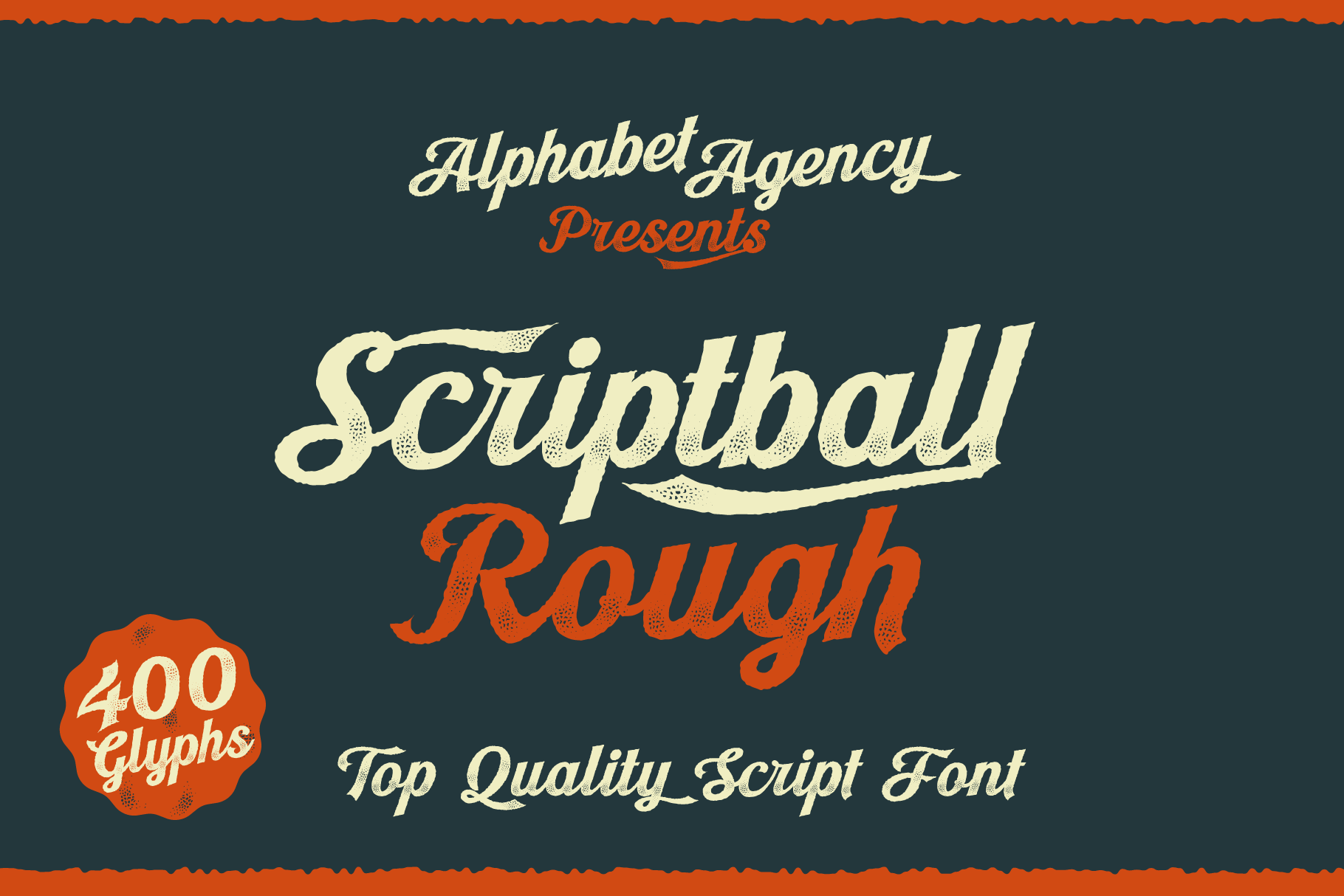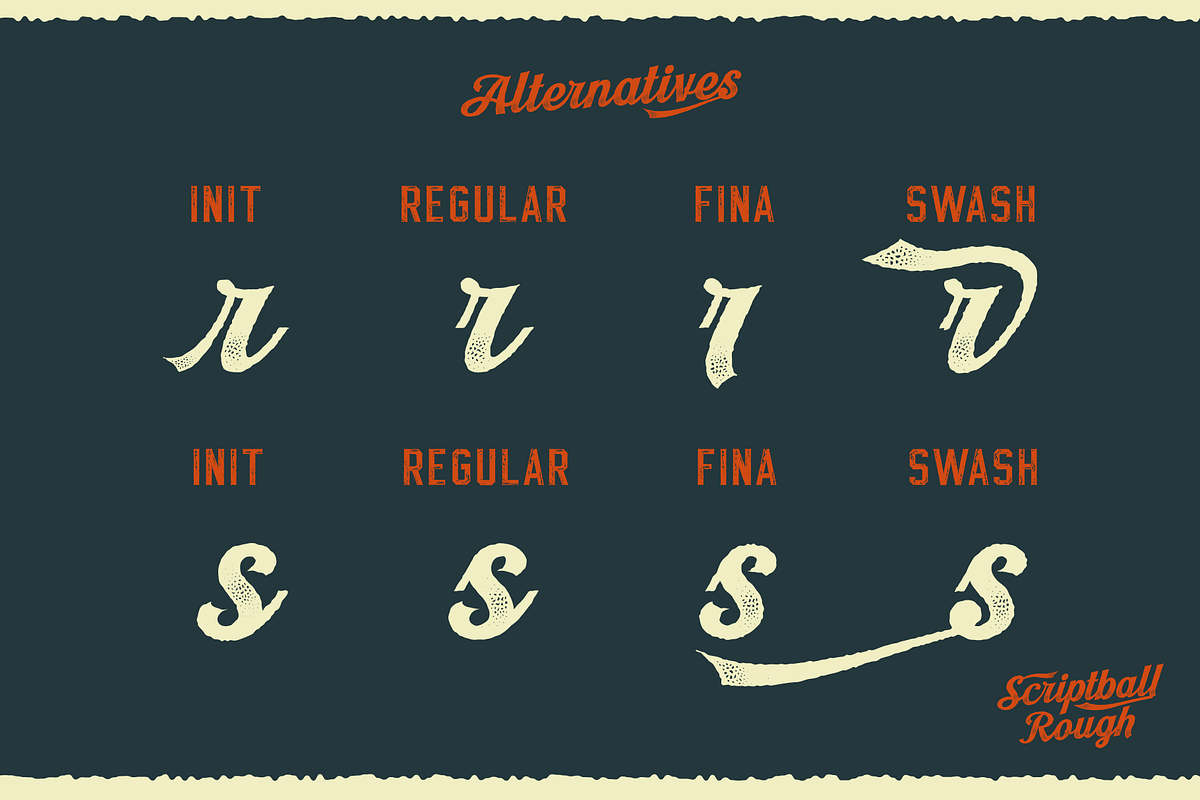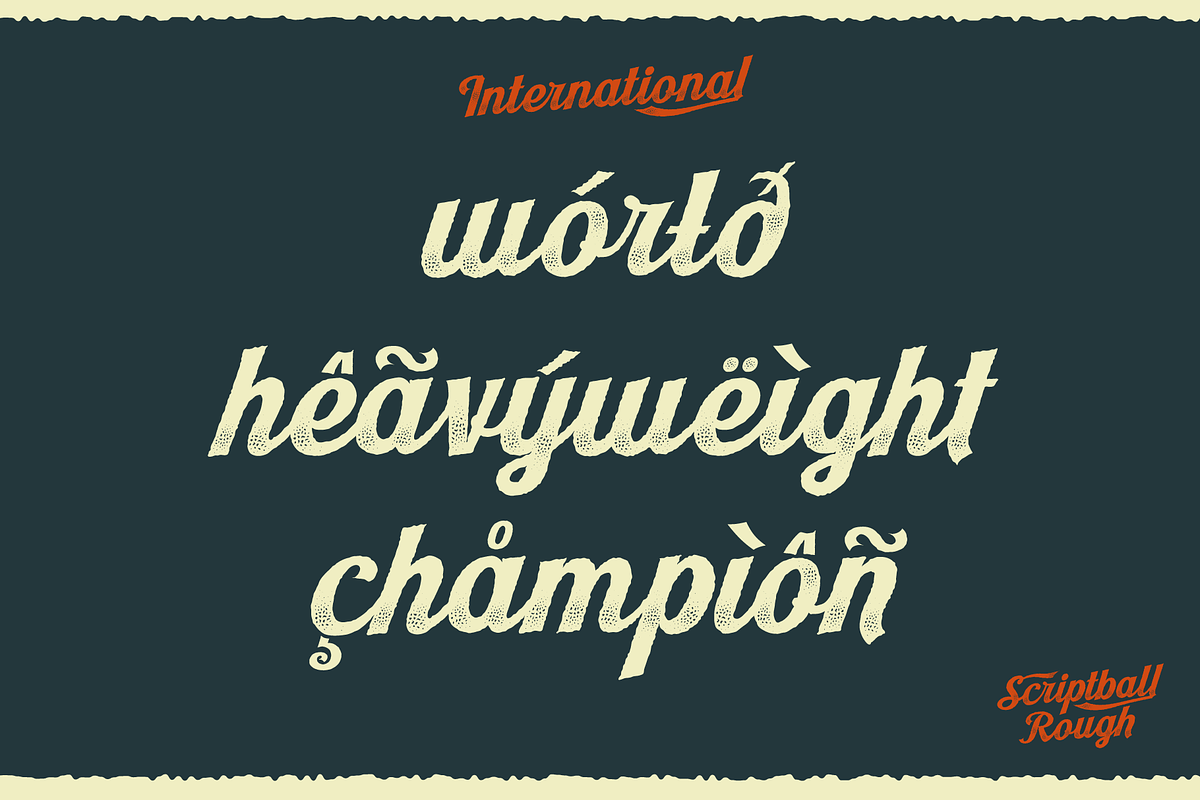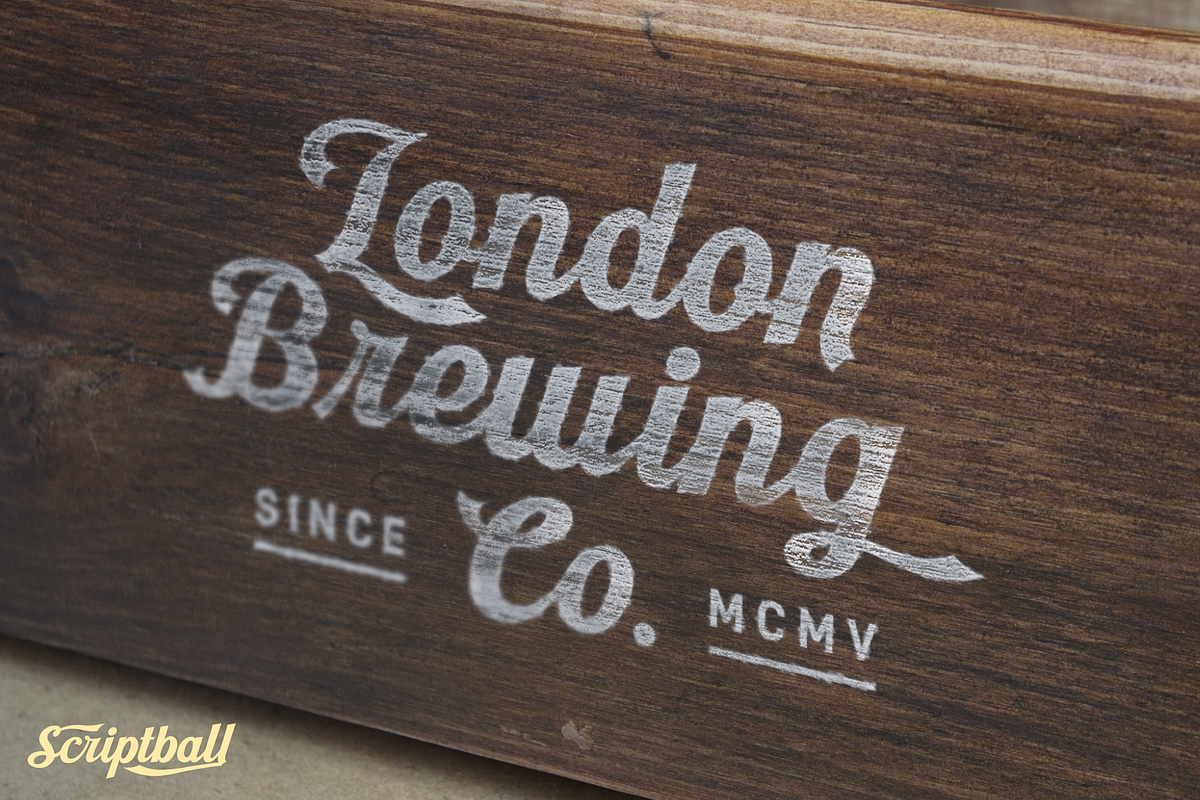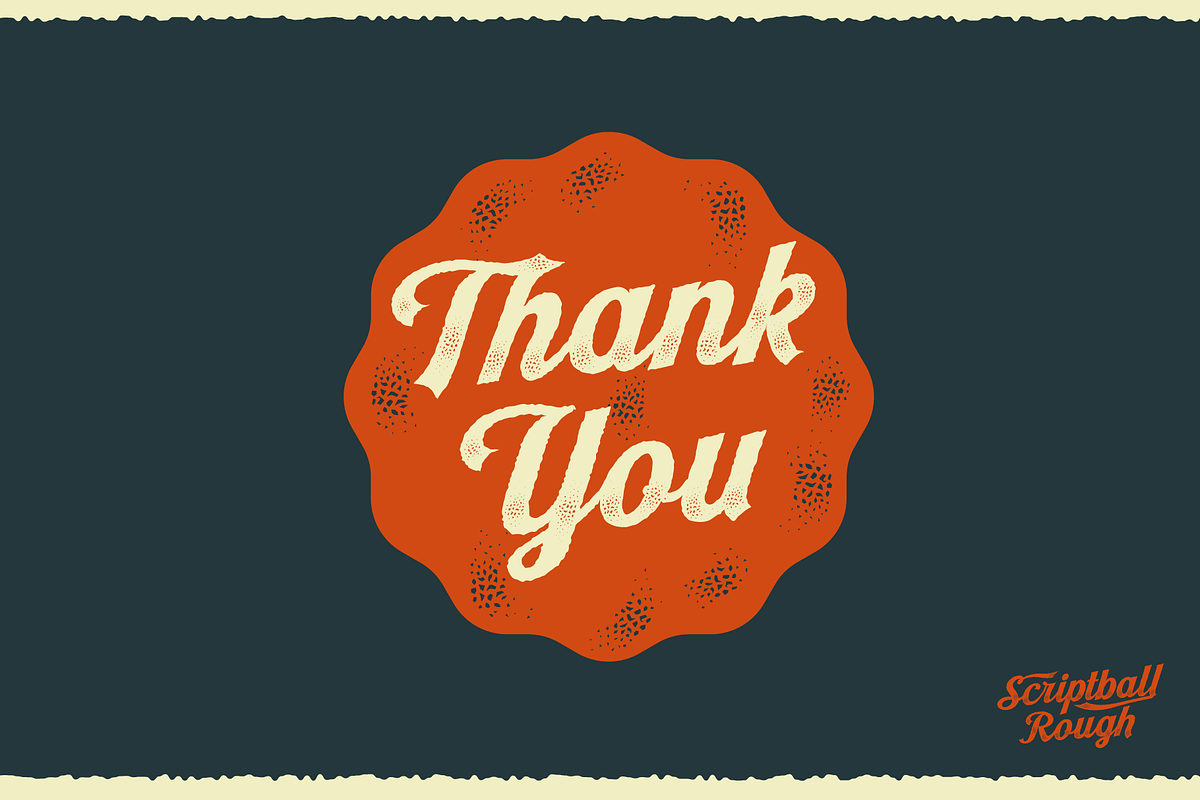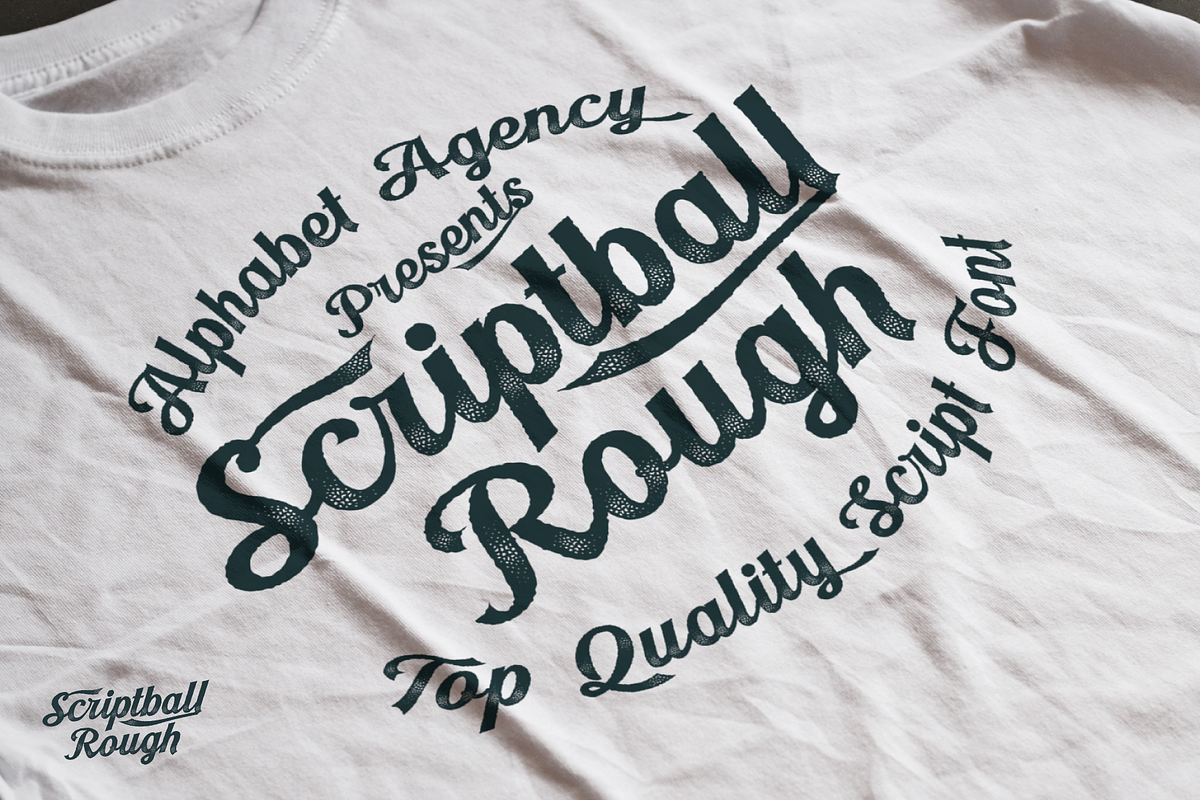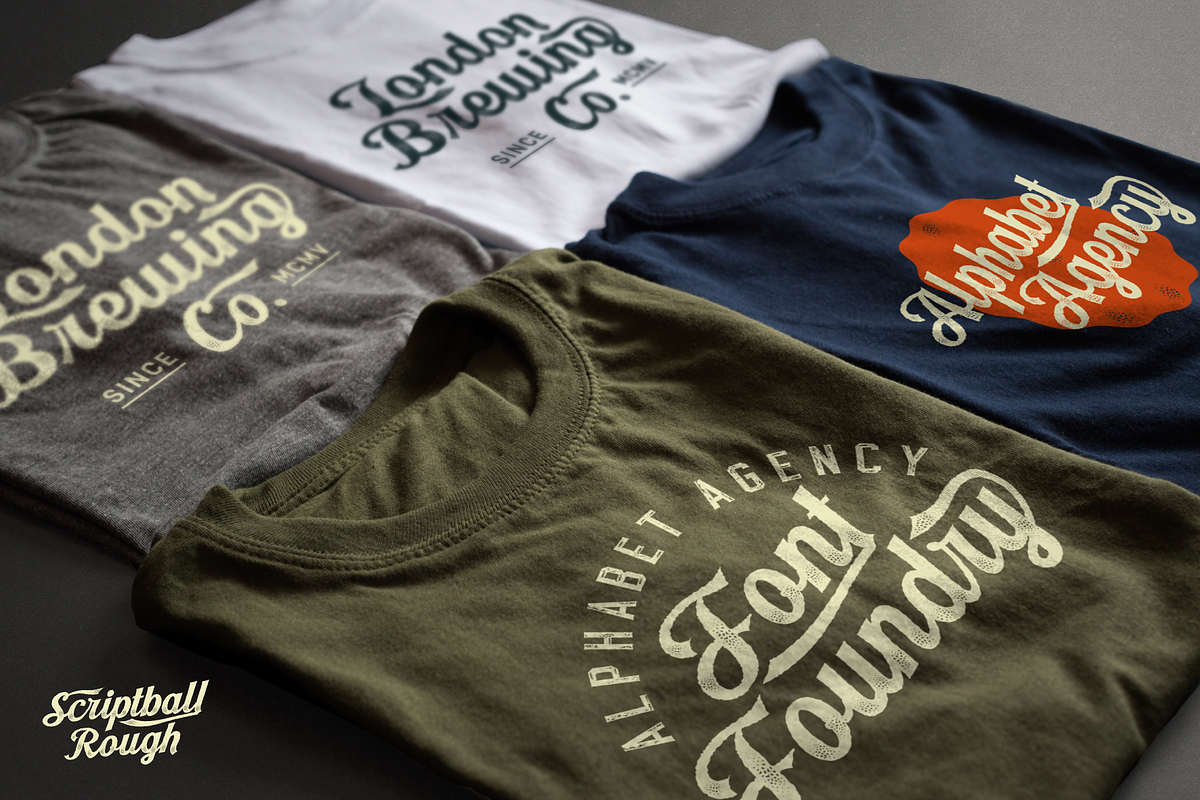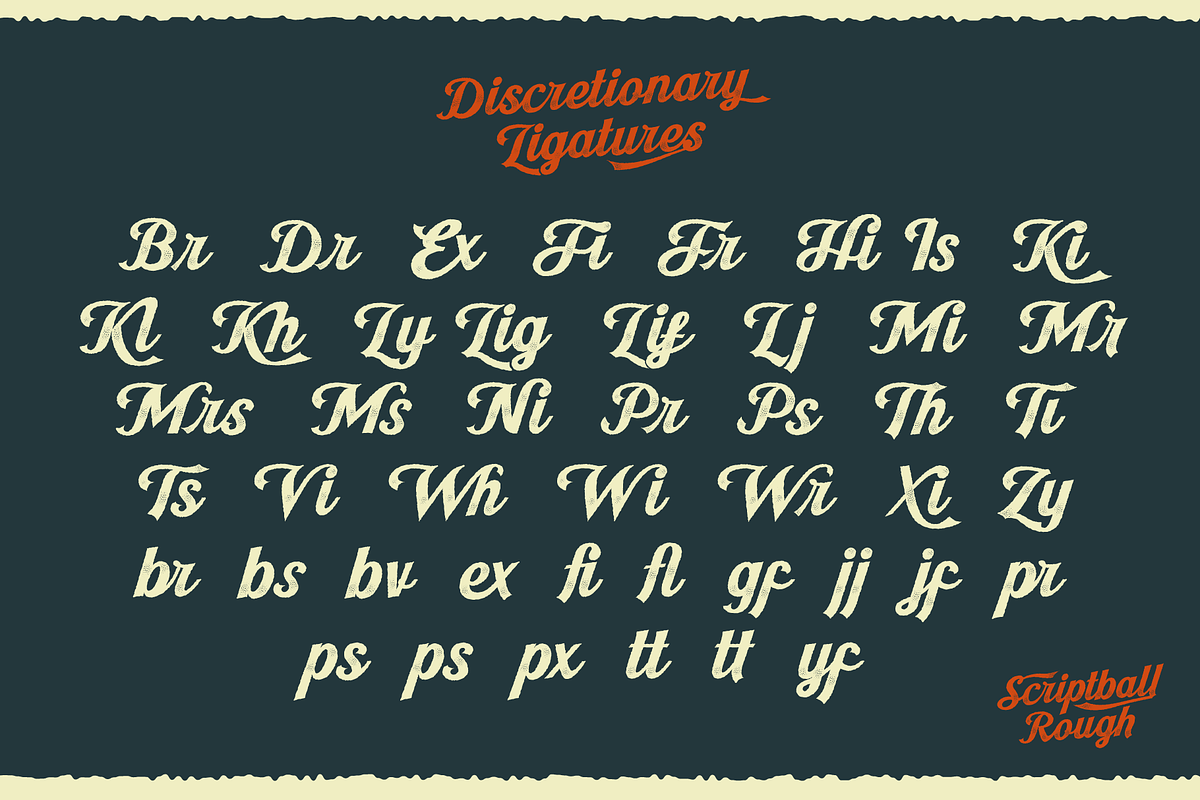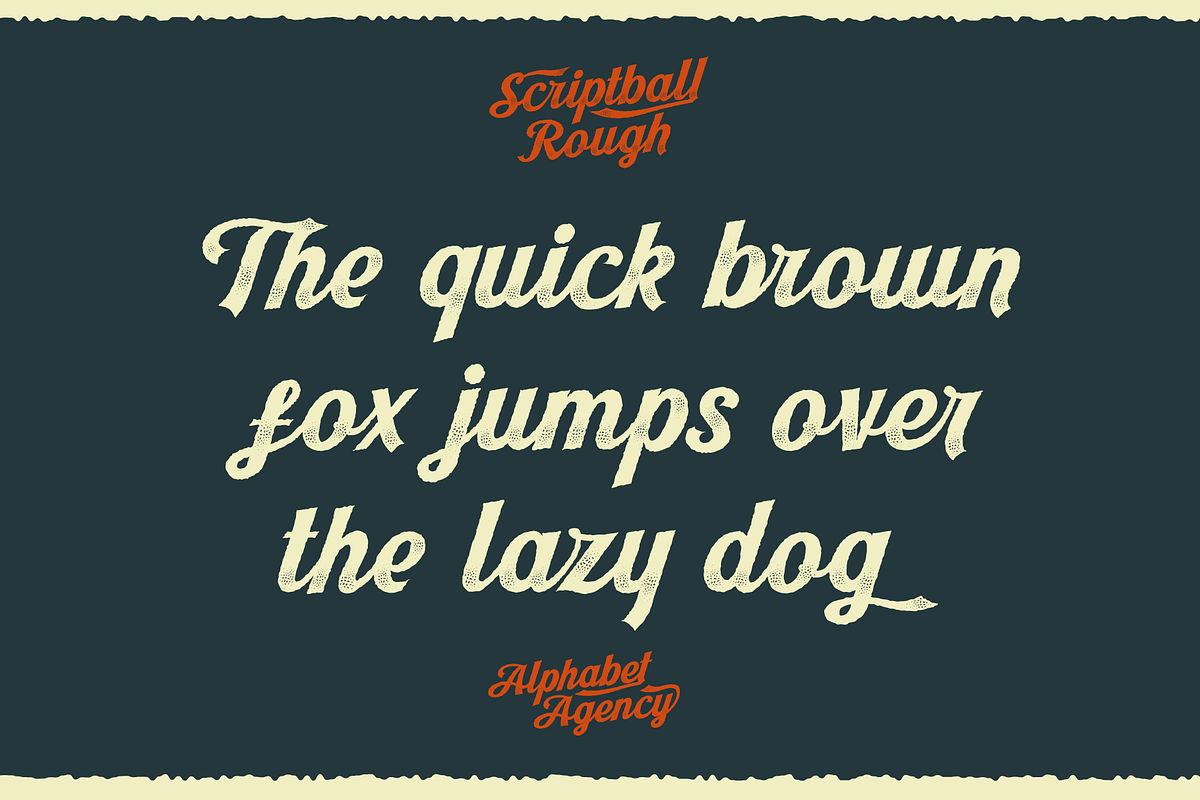
Scriptball Rough Font
Scriptball is an amazing script font containing over 400 characters. The combined letters of this cursive script font have a beautiful flow. The font includes uppercase, lowercase, numbers, punctuation and many alternative characters. The script font looks great in all kinds of different scenarios whether it is used in a classic commercial style, vintage business logo or baseball team shirt.. The font includes many alternative character to cover all possible scenarios, such as; the start of words, end of words, adding fancy swash elements to your typography design needs.. The font also includes many discretionary ligatures that provide wonderful alternative options that perfectly display certain letter combinations.